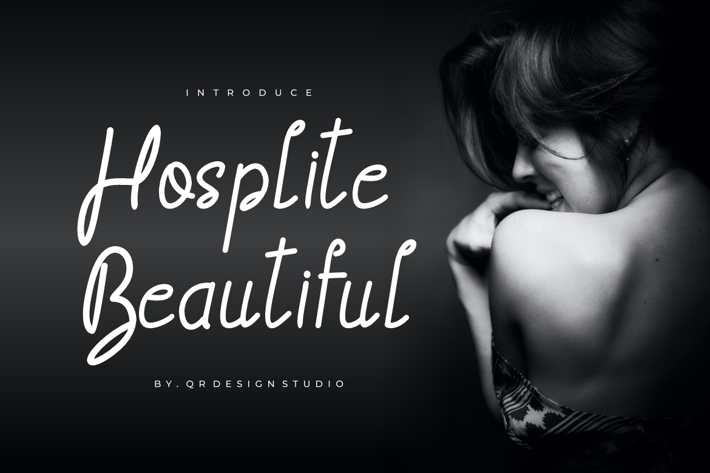
Hosplite Beautiful - Handwritten Fonts
Hosplite Beautiful - Handwritten Fonts is a bold and authentic display font.
The font is suitable for any branding project like wedding, greeting card, poster, logo, sport, and many more.